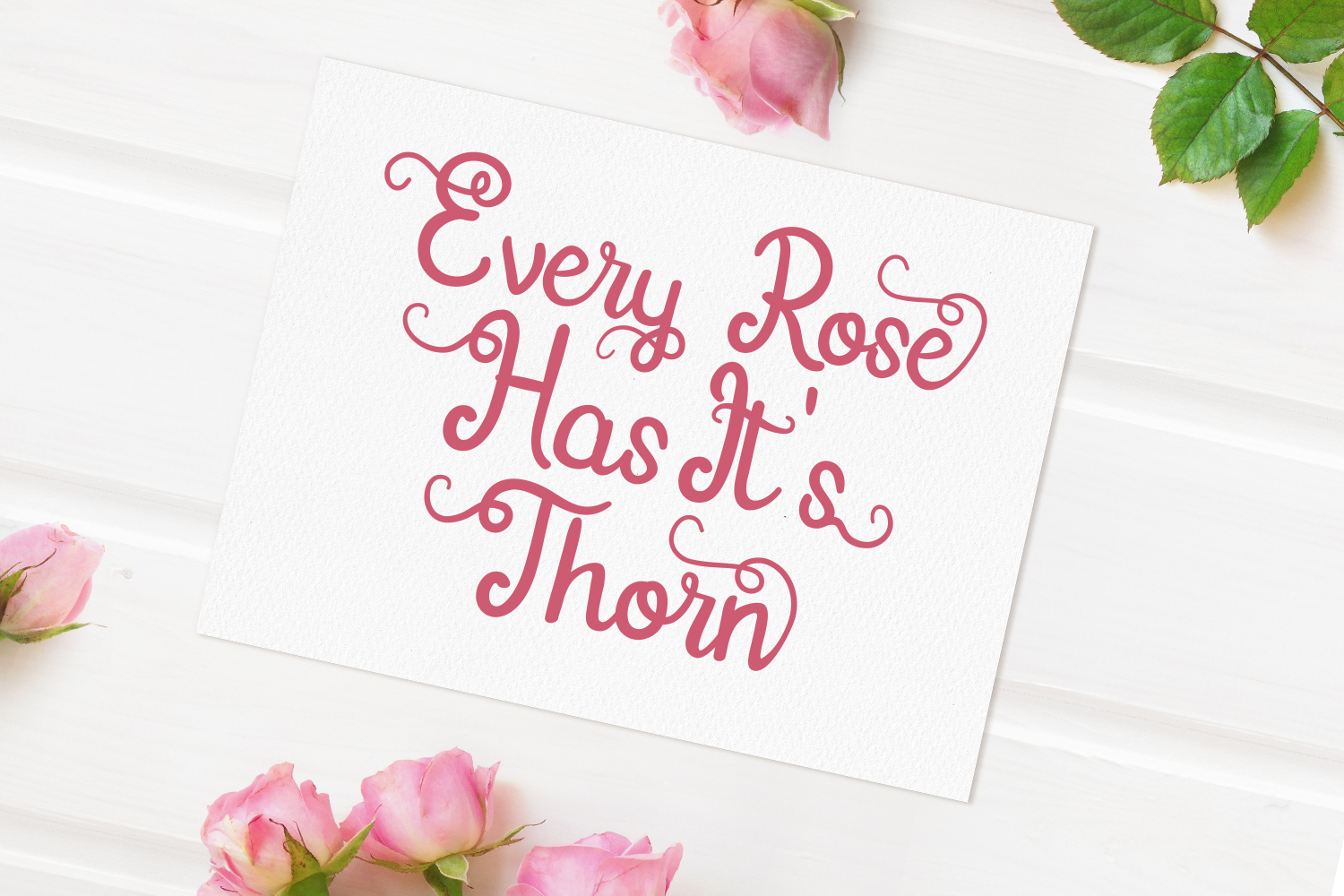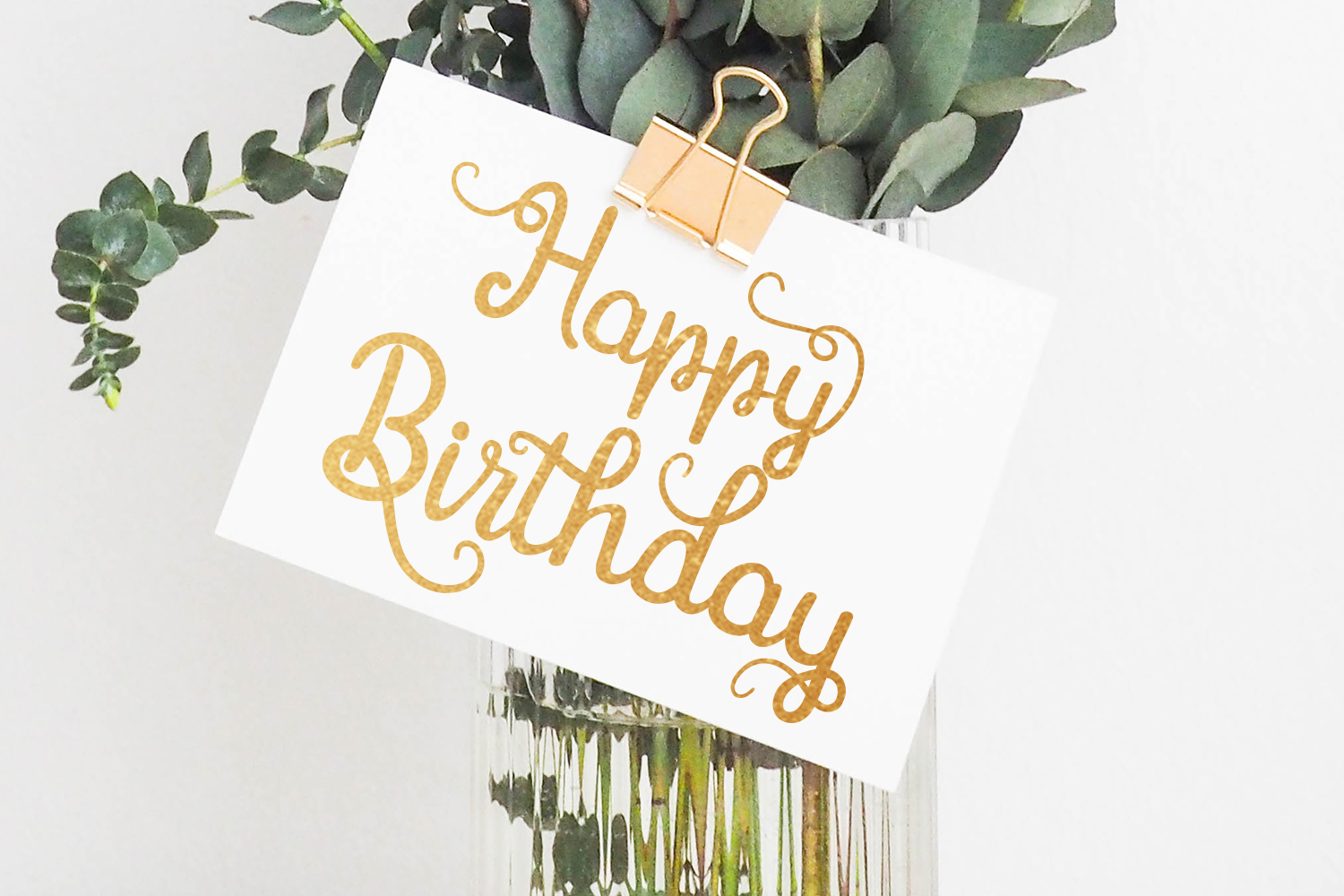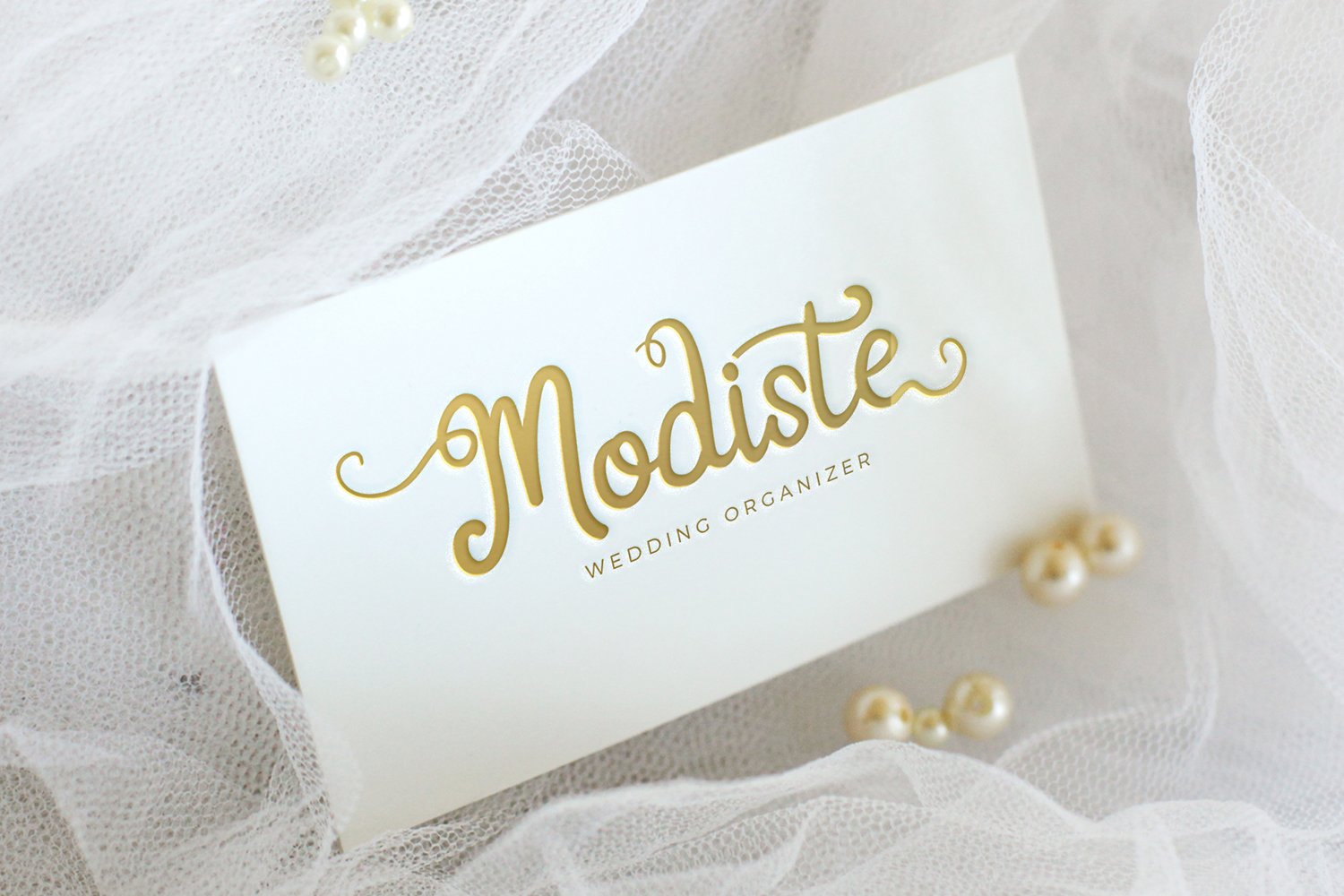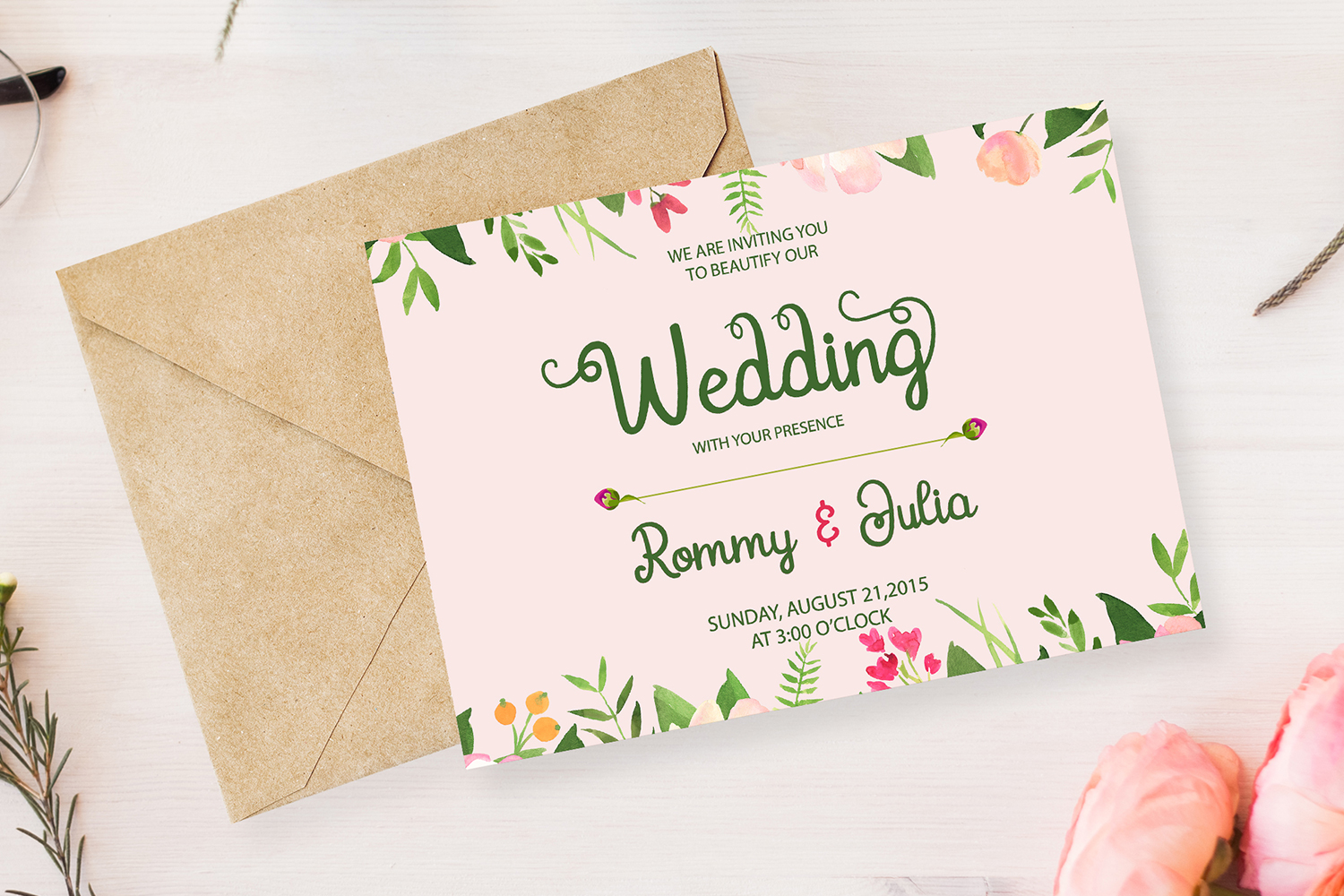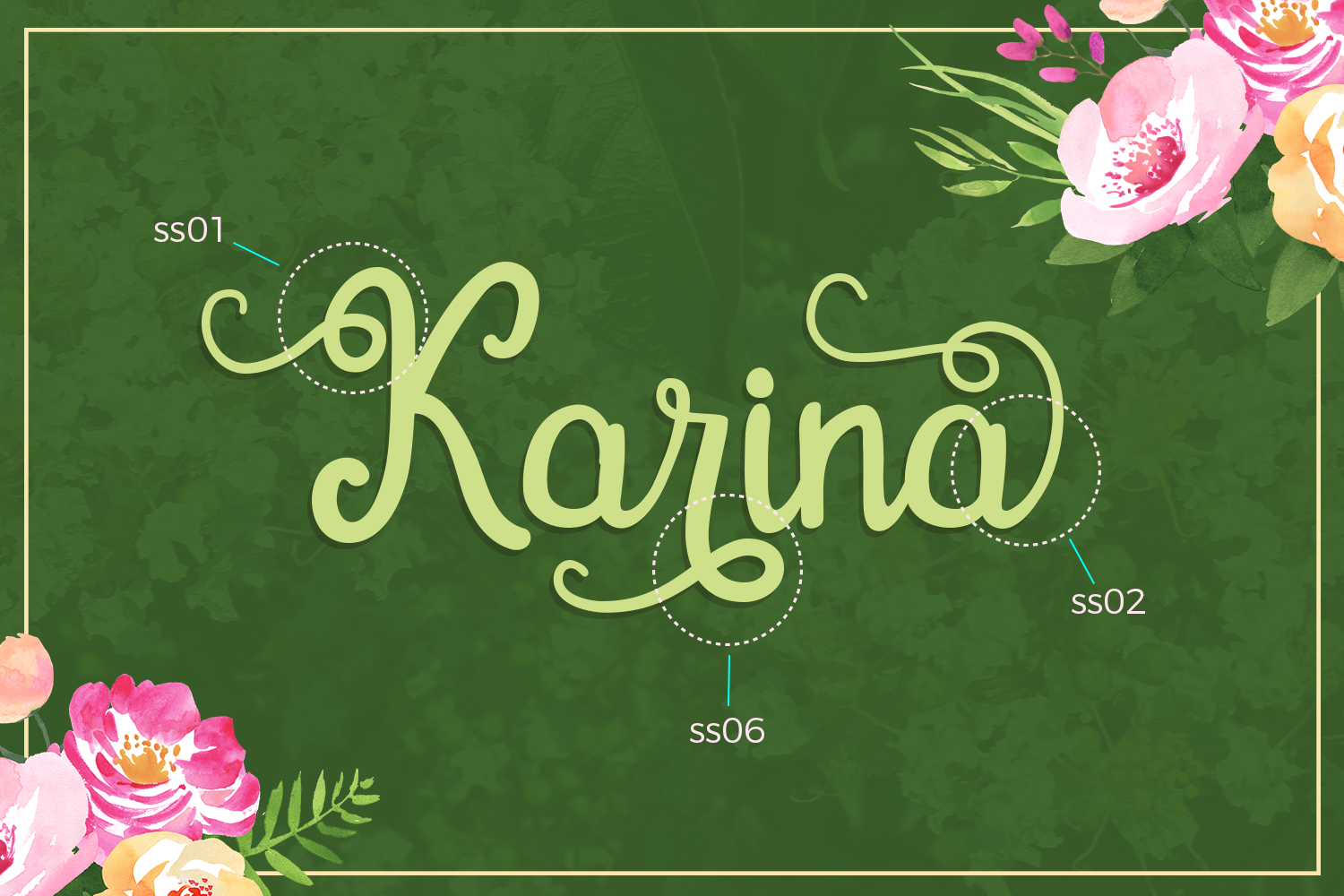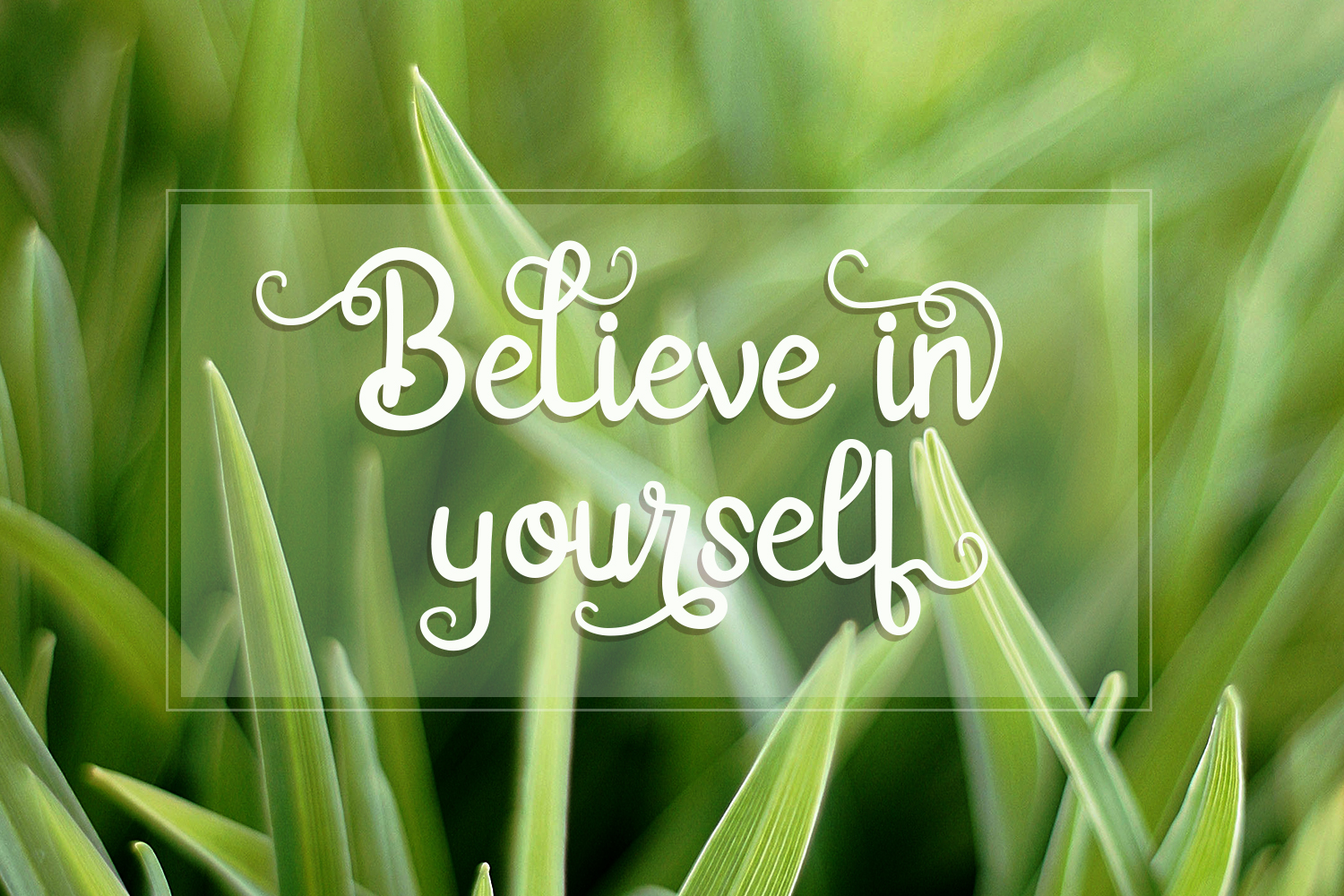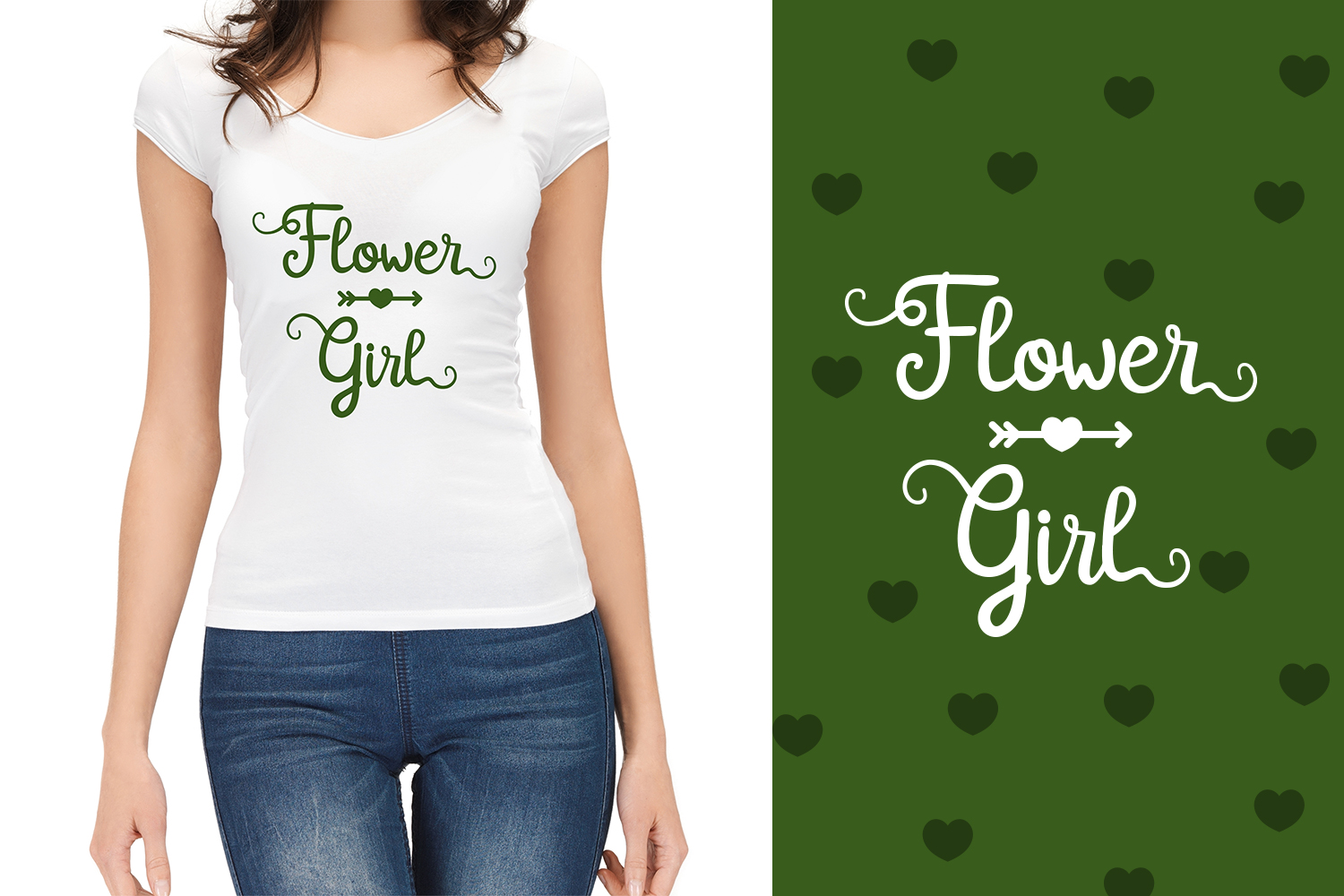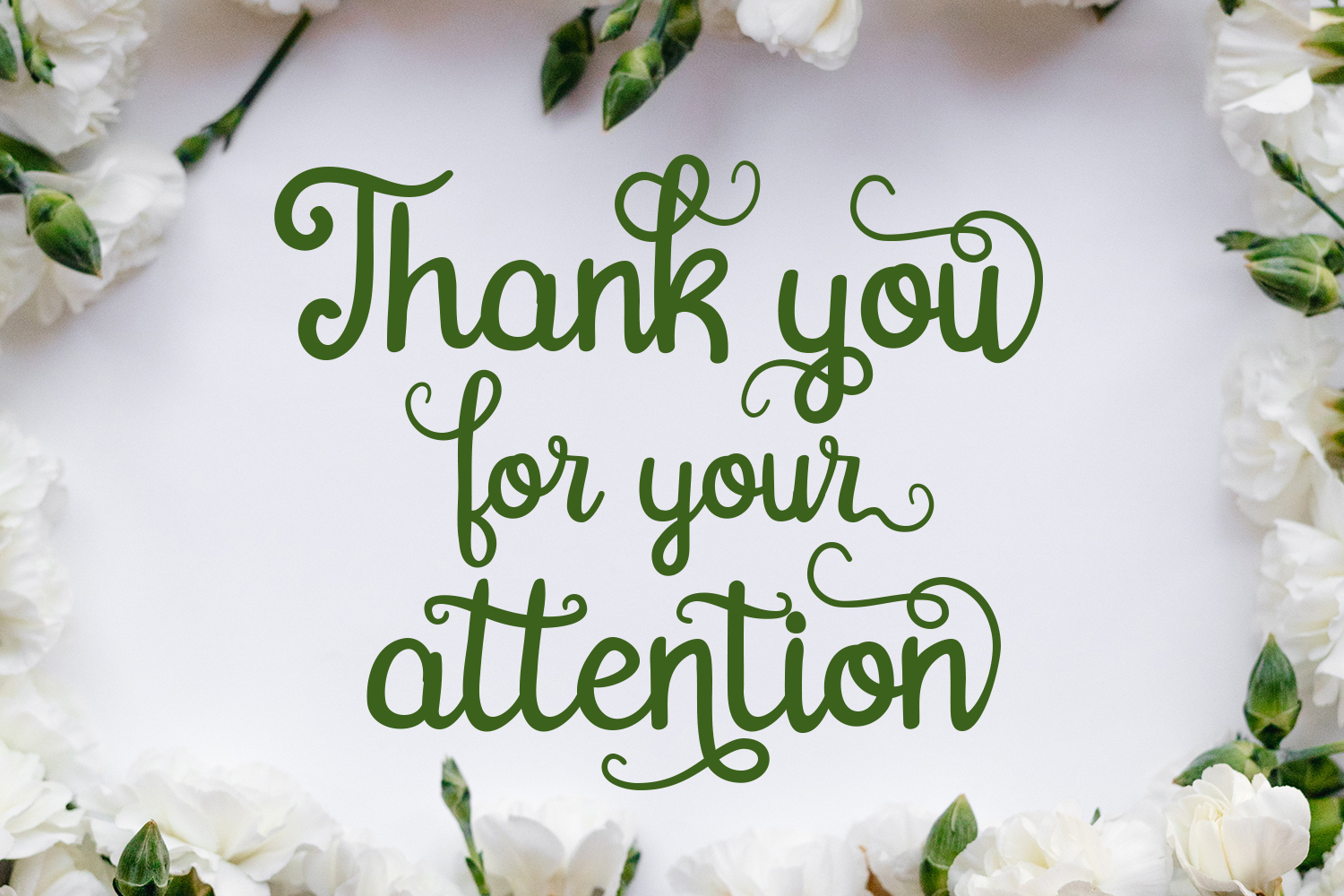
Gardena Font
About Gardena Font
Gardena Script Font is designed and inspired from the naturalness of handwriting. This font comes with appealing swashes and swirls, and can be used in a wide range of styles for truly refreshing design.